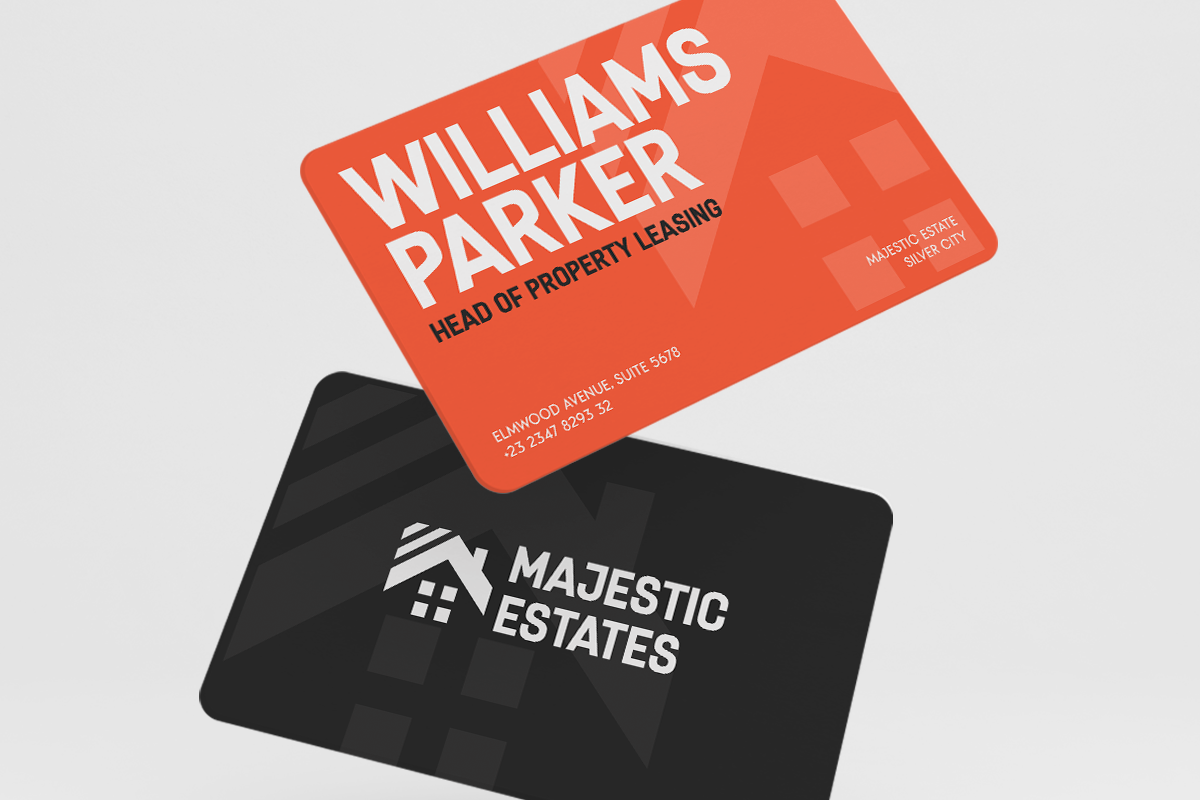
Jango Sleek Condensed Font for Bold Modern Branding π
Jango Condensed Logo Font π
Bold, Clean, Compact β Built to Stand Out
Meet Jango, a sharp condensed logo font made for modern branding with limited space and high impact. With tall forms, tight spacing, and confident styling, Jango delivers strong presence in sleek proportions β perfect for logotypes, headlines, and identity systems.
In this showcase, I tested how Jango performs across various branding applications β from logos to packaging and interface design, Jango stays bold, clean, and unmistakably modern.
Jango is narrow in width but bold in energy. Smart. Stylish. Designed for clarity.
Let your brand speak confidently β even when space is tight.